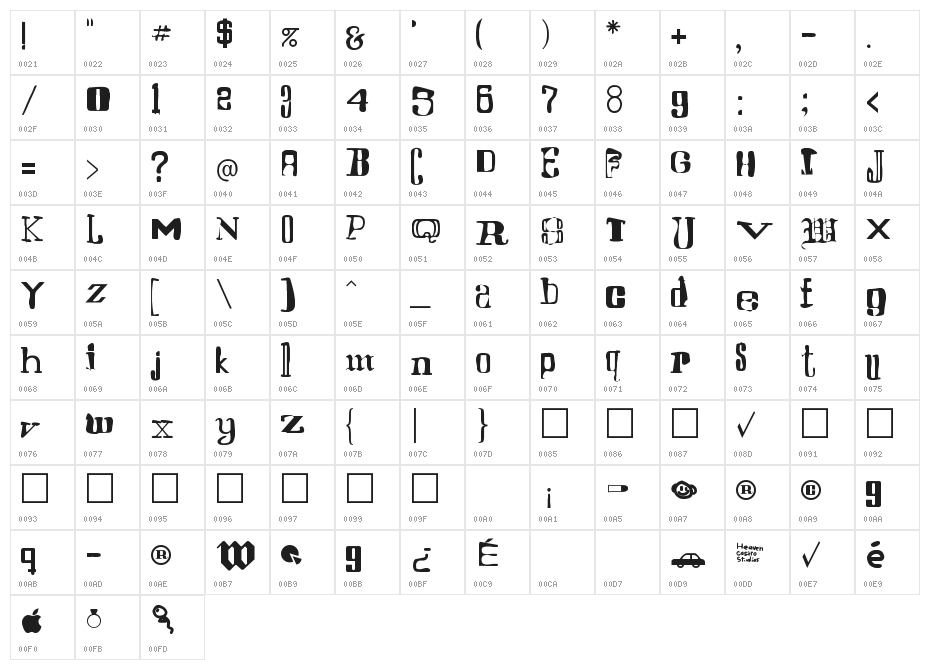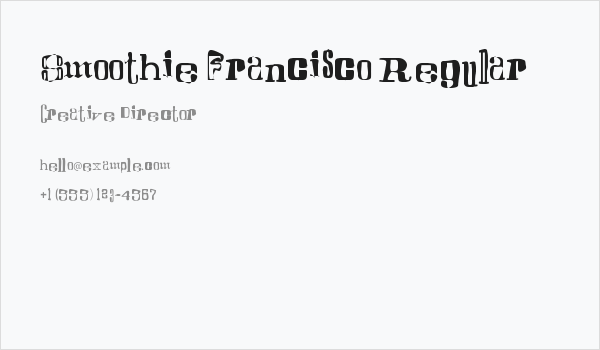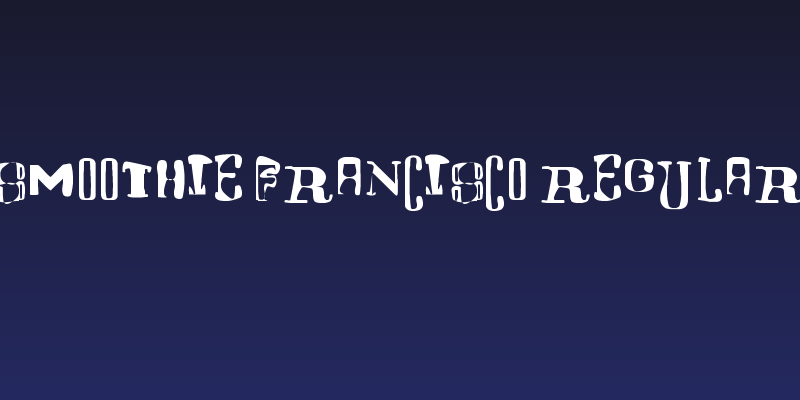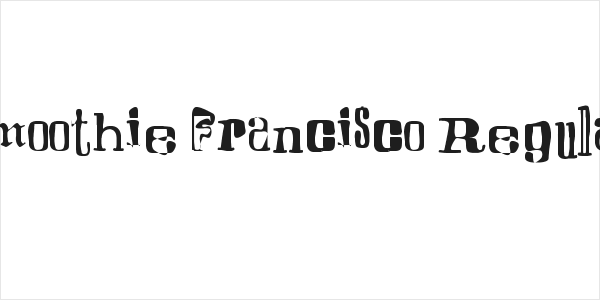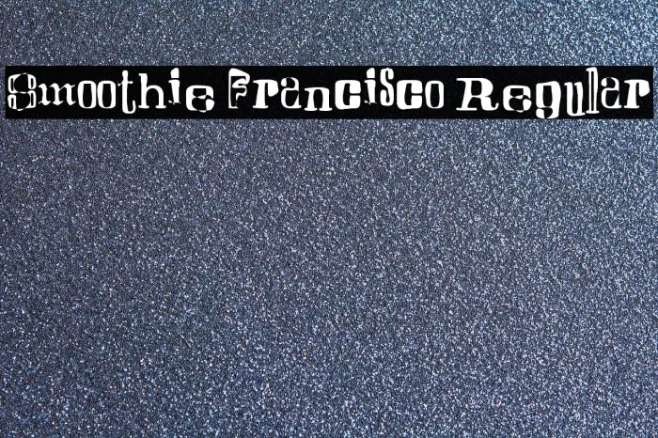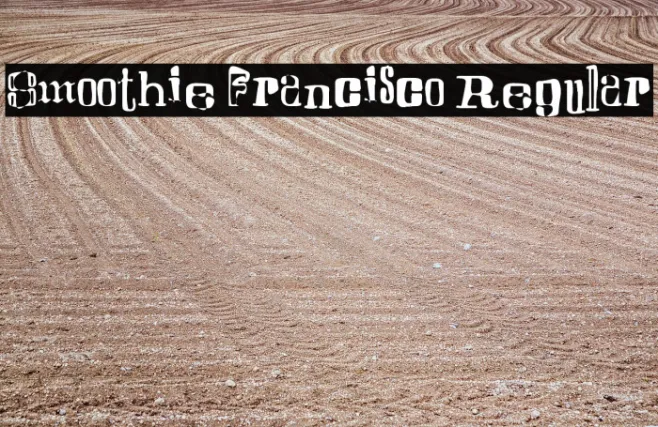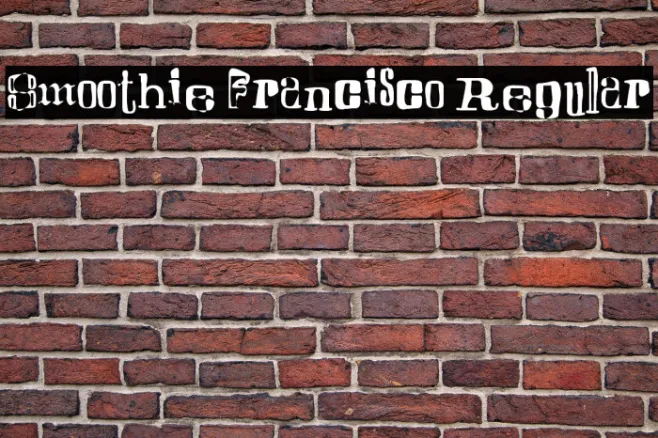
Smoothie Francisco Regular Font
Smoothie Francisco Regular Description
This font exhibits a unique and eclectic style, combining elements of both modern and vintage aesthetics. The characters are highly decorative, featuring a mix of thick and thin strokes that create a dynamic visual rhythm. The uppercase letters are bold and striking, with some incorporating unexpected curves and angles that add to the font's distinctive character. Lowercase letters maintain this playful yet sophisticated style, with varying heights and widths that contribute to an overall whimsical appearance. Numbers and special characters are equally stylized, ensuring a cohesive look across all elements. The font's artistic flair makes it ideal for creative projects that require a bold statement.